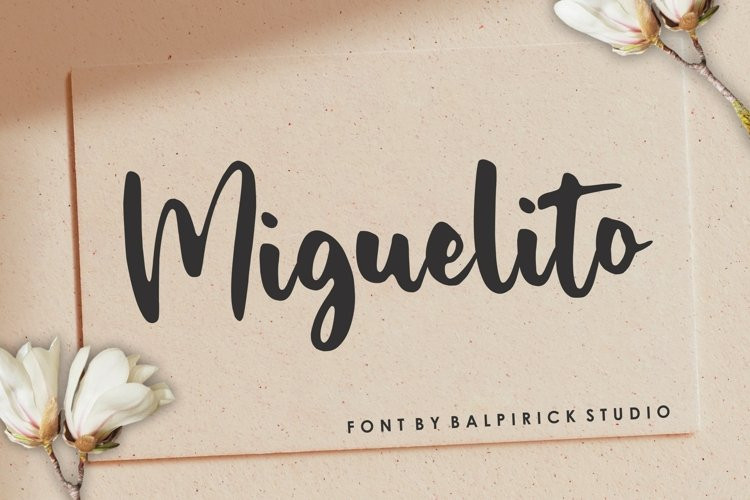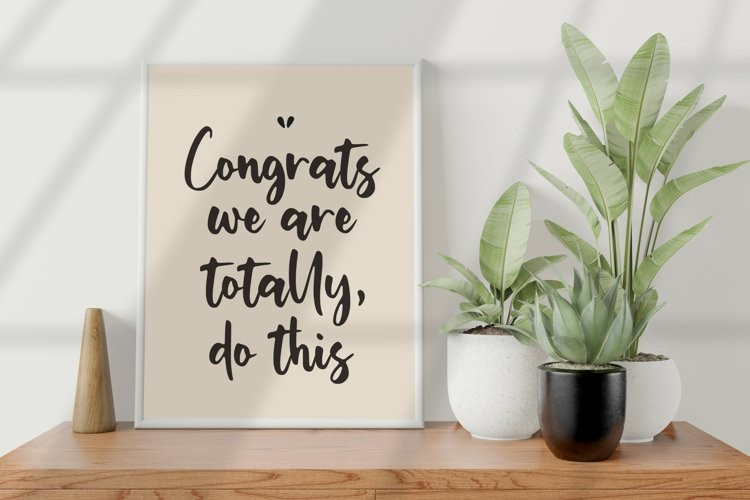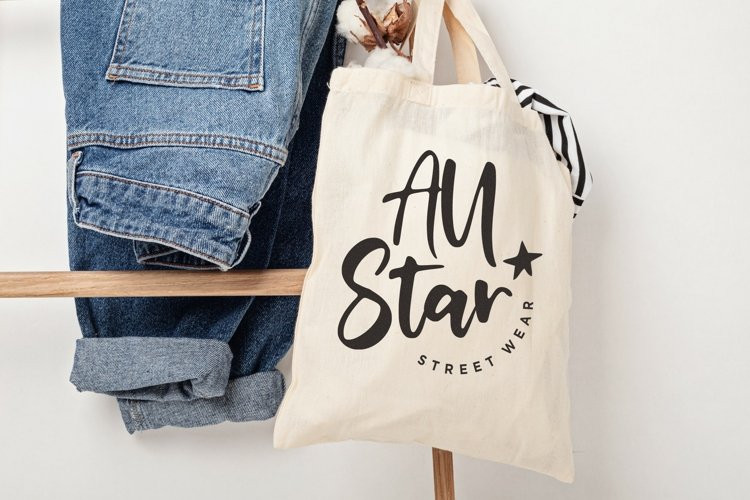
Miguelito Font
Miguelito FontMiguelito is an elegant script font with a contemporary atmosphere and impeccable form. Not too thin and not too thick, balanced and varied, this font was designed to enhance the beauty of your projects.